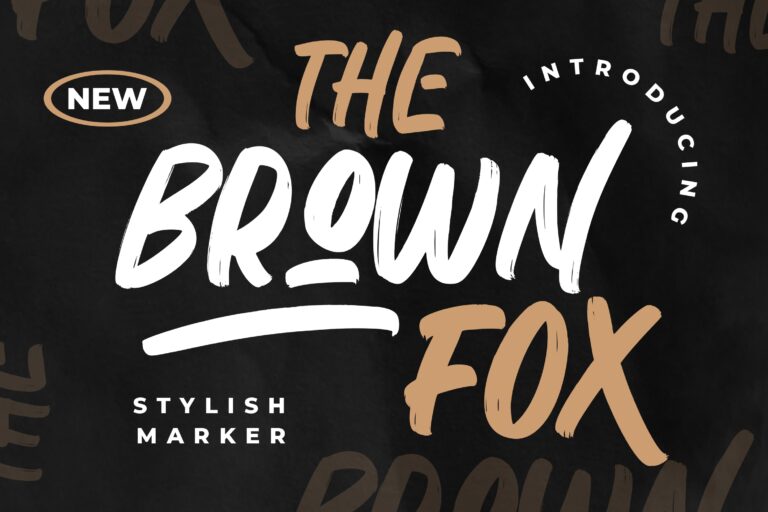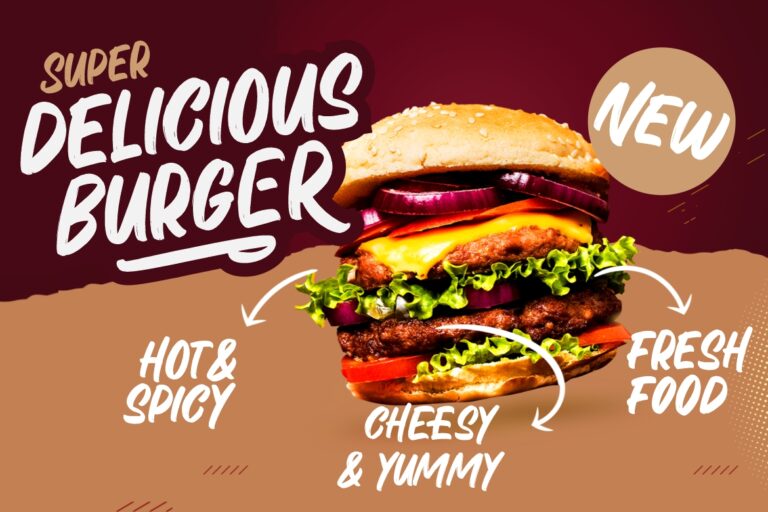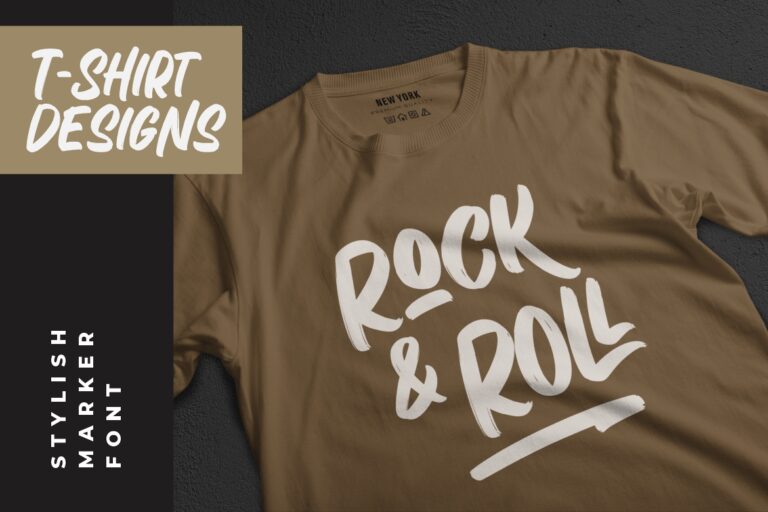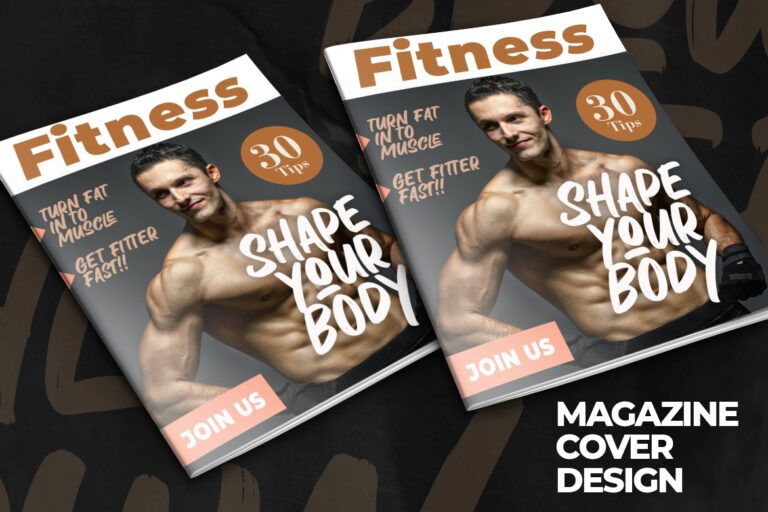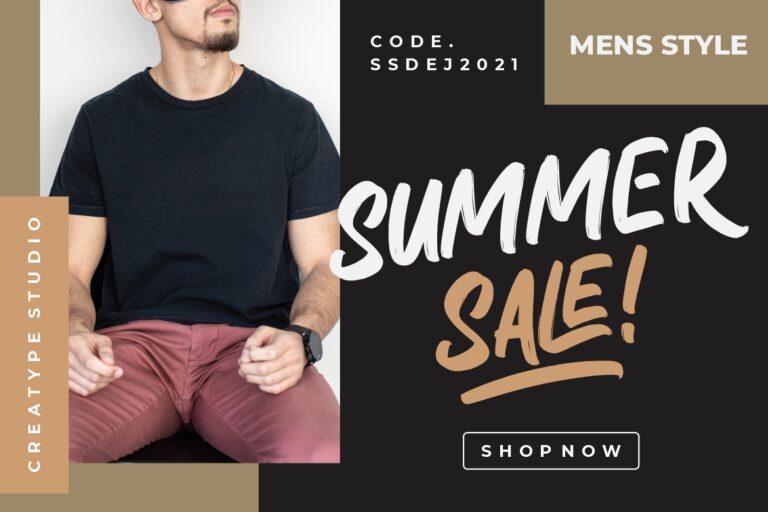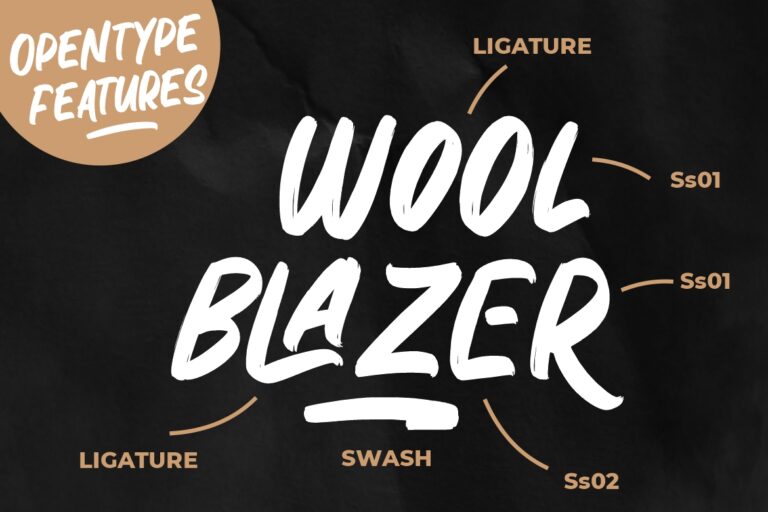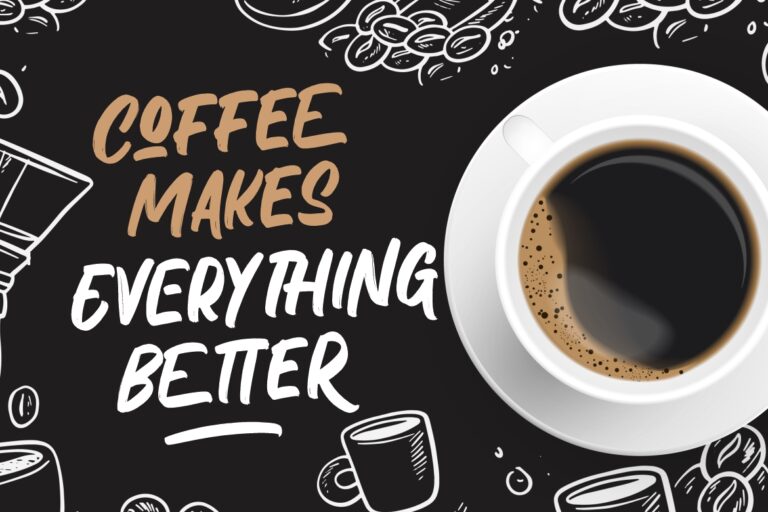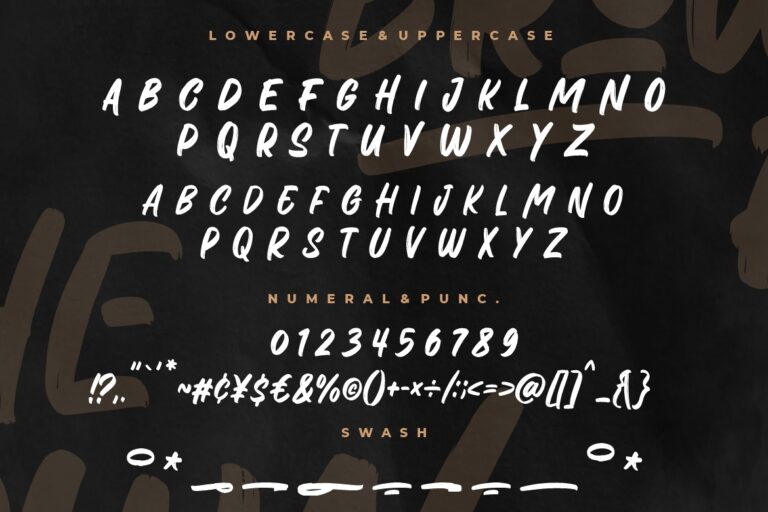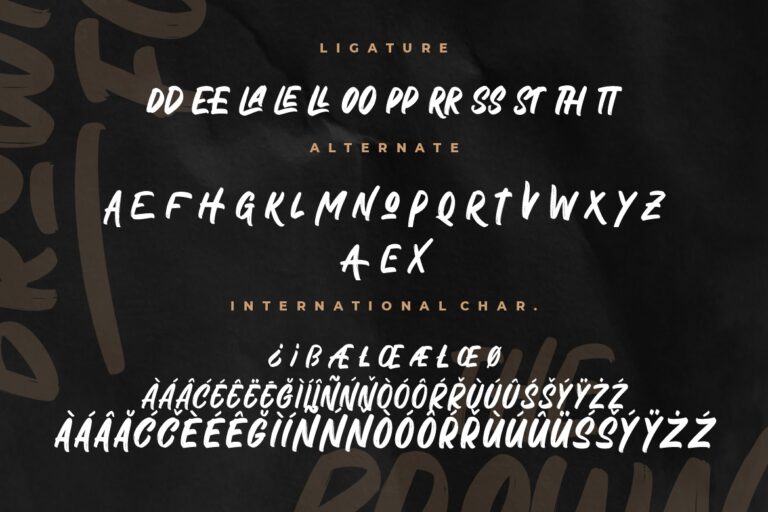
The Brown Fox Stylish Marker
The Brown Fox is a stylish marker font with a brush-style that perfect for your latest project.
The Brown Fox is perfect for branding projects, logo, wedding designs, social media posts, advertisements, product packaging, product designs, label, photography, watermark, invitation, stationery and any projects that need handwriting taste.
• Ton of glyphs
• Ligature & Alternate
• Fonts include multilingual support for; Afrikaans, Albanian, Czech, Danish, Dutch, English, Estonian, Finnish, French, German, Hungarian, Italian, Latvian, Lithuanian, Norwegian, Polish, Portugese, Slovak, Slovenian, Spanisch, Swedish.